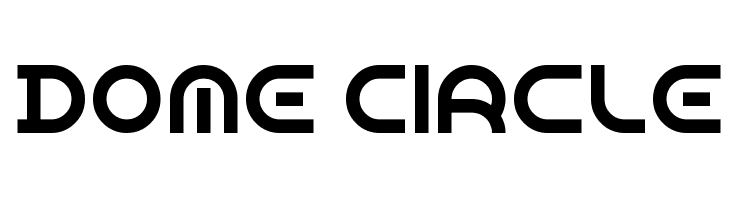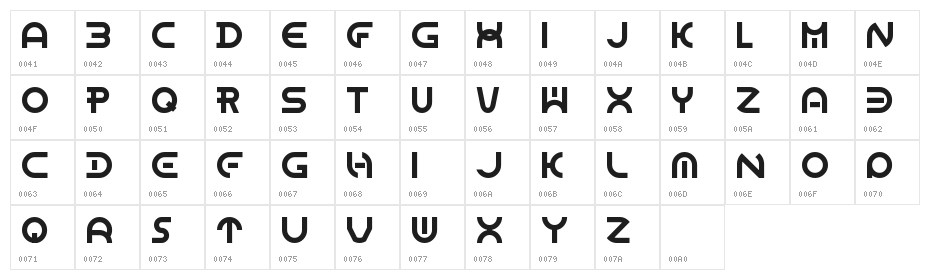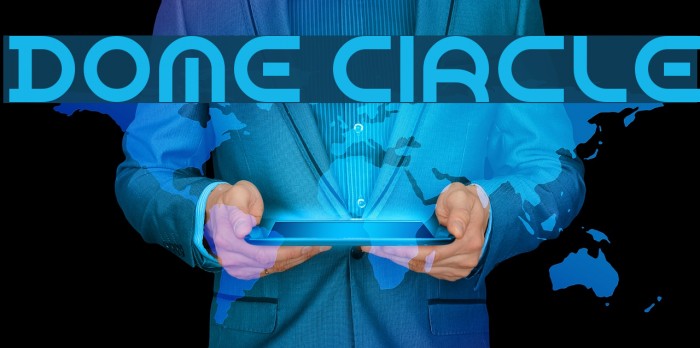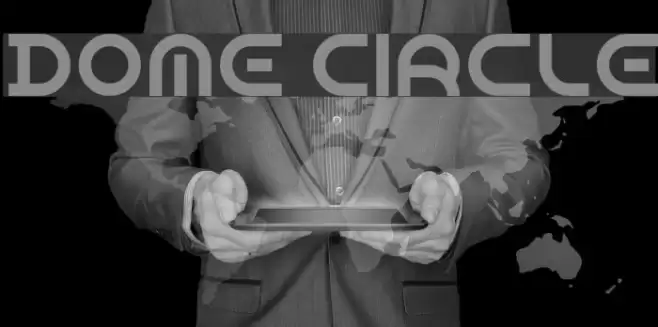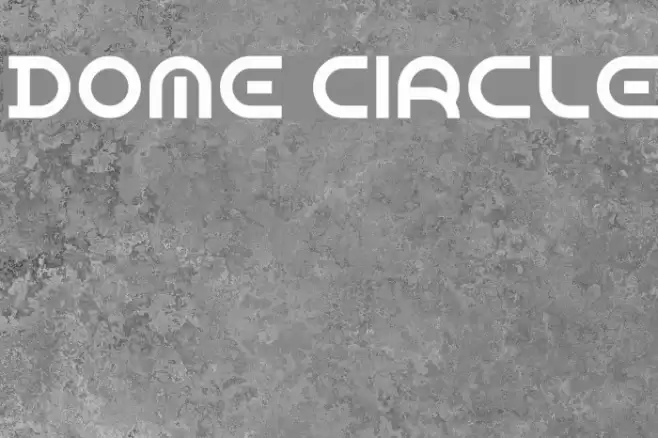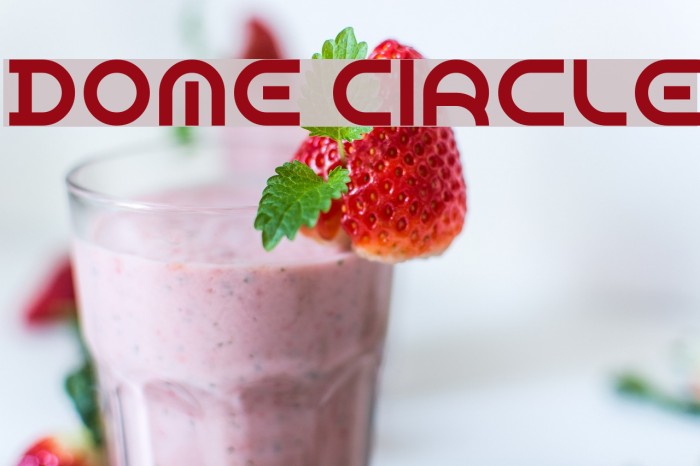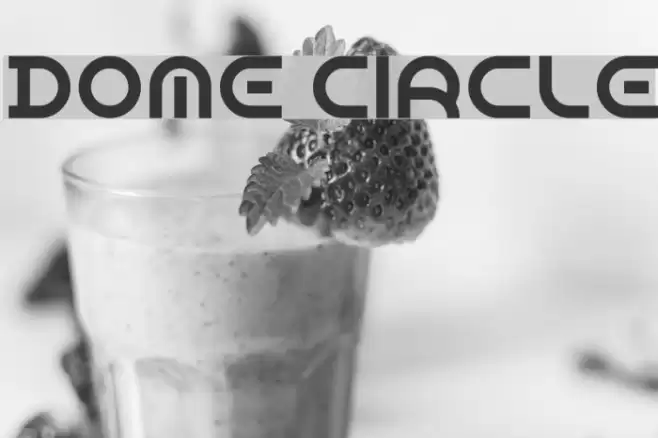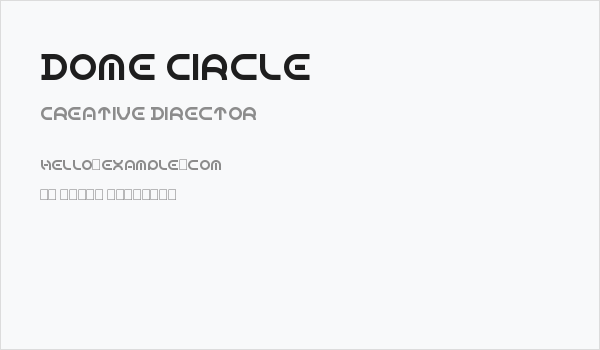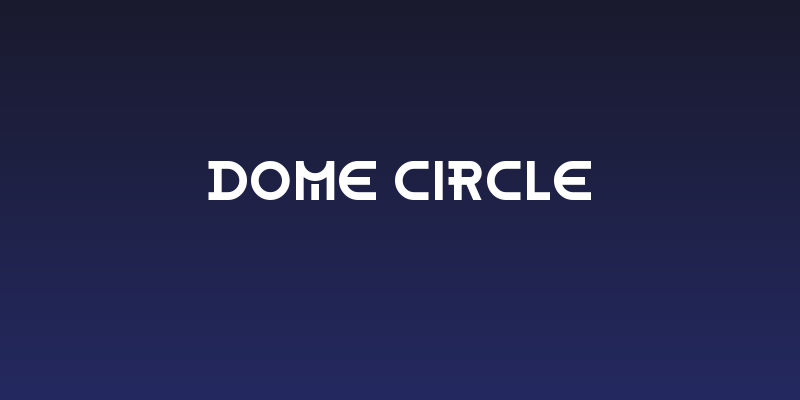
Dome Circle Font
Dome Circle Description
This font features a bold, geometric style with a futuristic and modern aesthetic. The characters are constructed with thick lines and sharp angles, giving them a strong and impactful presence. The design incorporates unique cutouts and curves, particularly noticeable in letters like 'A', 'G', and 'R', which add a distinctive flair. The uppercase letters maintain a consistent height, while the overall structure is balanced and symmetrical. This font is ideal for projects that require a bold statement or a modern, tech-inspired look.
| Proposed Projects | Ideal for technology branding, sci-fi themed designs, posters, and modern logos. |